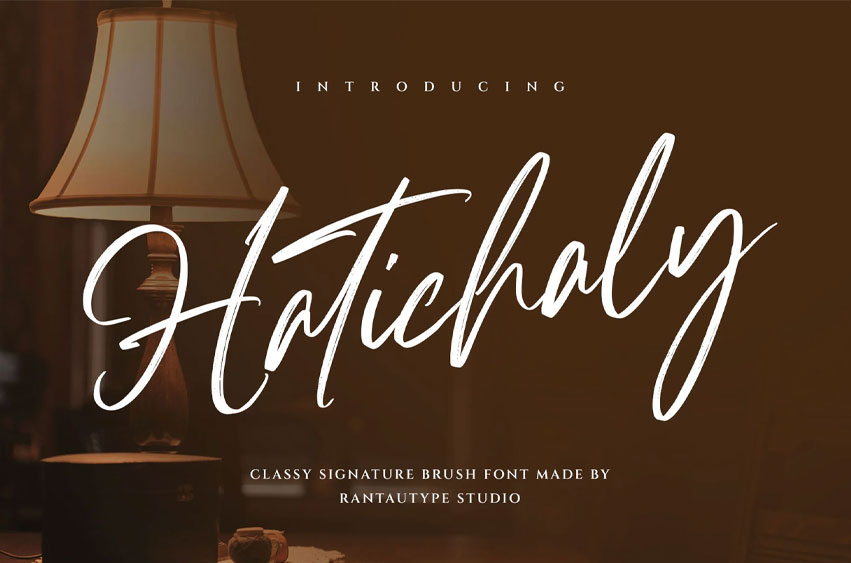
Hatichaly Font is an elegant signature brush font created by Rantautype Studio. It is a perfect choice for a wide range of creative projects, including modern lifestyle designs such as logos, titles, covers, branding, invitations, wedding designs, displays, magazines, social media posts, advertisements, printed quotes, product packaging, corporate branding, product designs, labels, photography, watermarks, and special events.
Whether you’re working on a project that requires a contemporary touch or something more artistic, Hatichaly Font is versatile enough to meet your needs.